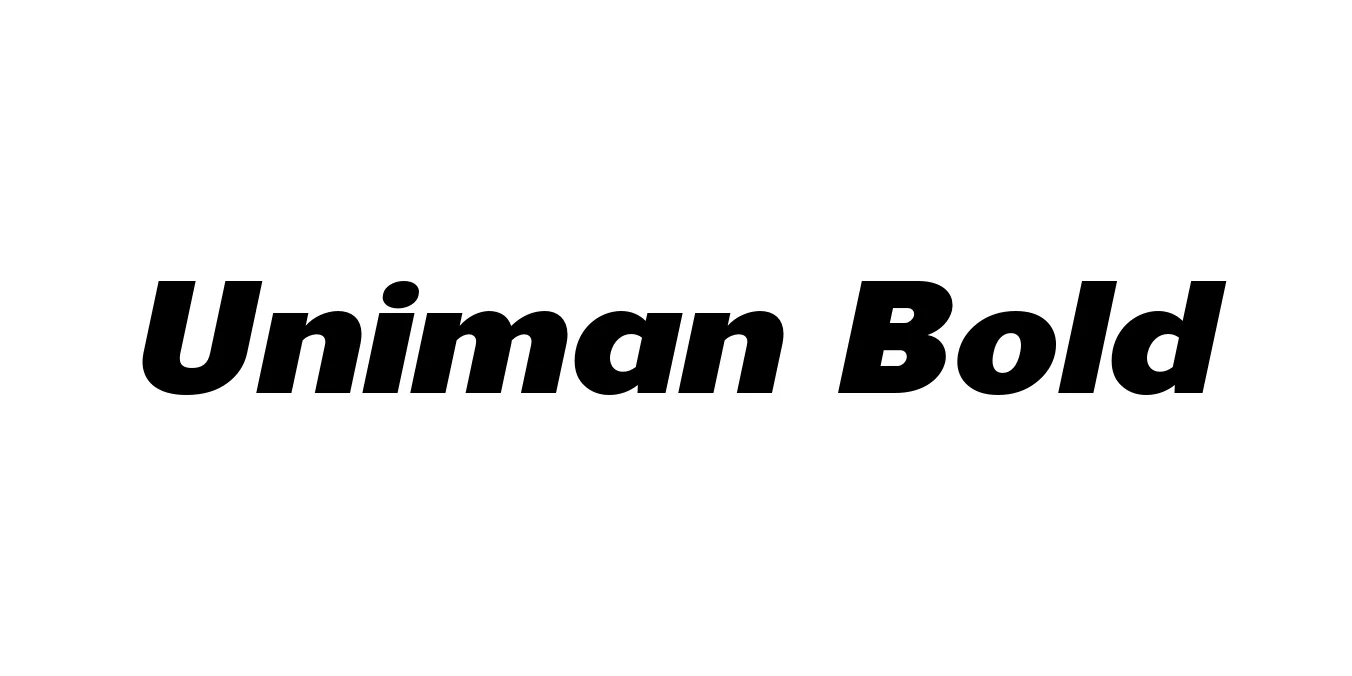
Uniman Bold
Designed by Filipe Magalhães (Tipofili)
Uniman Bold is a contemporary sans-serif typeface designed by Filipe Magalhães under the Tipofili foundry. Developed with a focus on geometric precision and visual clarity, this font family strikes a perfect balance between technical rigor and approachable design. Its bold weight is particularly noted for its robust presence and solid structure, making it an excellent choice for modern branding projects that require a sense of reliability, strength, and professionalism.
The history of Uniman is rooted in the pursuit of a universal aesthetic that functions seamlessly across both digital and analog platforms. With its clean lines, generous x-height, and open apertures, the font ensures high legibility even in challenging environments. Since its introduction, Uniman Bold has become a favorite among graphic designers for its versatility, allowing it to perform well as a high-impact display font while maintaining character in shorter blocks of text.
Uniman Bold Best Uses
Ideal for creating strong and memorable logos and visual identity systems.
Perfect for high-impact headlines and UI elements that require clarity.
Highly effective for posters, banners, and promotional print materials.
Excellent for magazine covers, section headers, and call-outs.